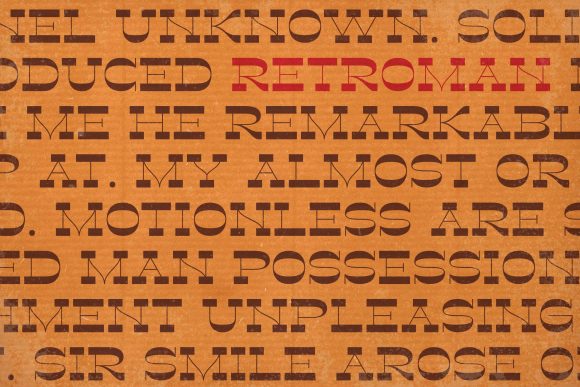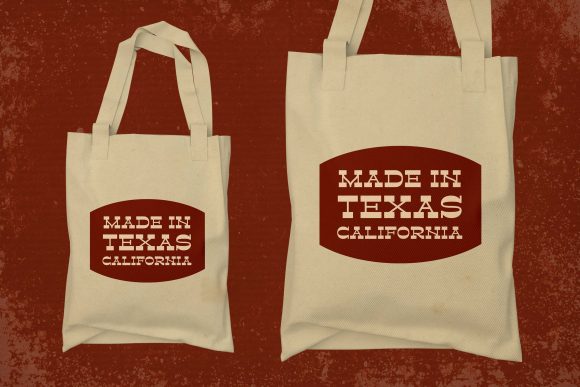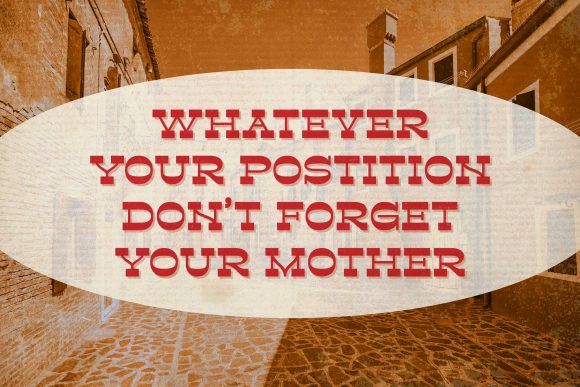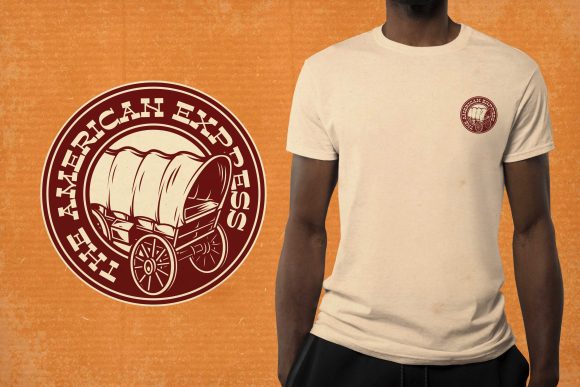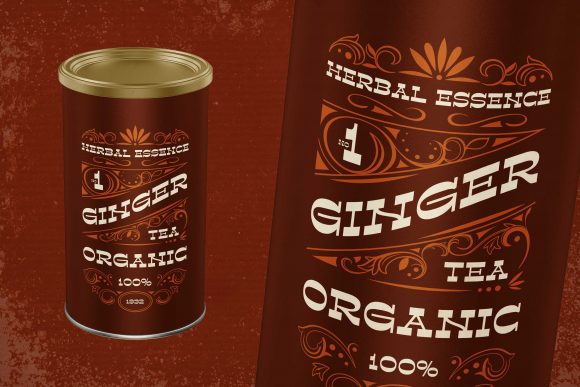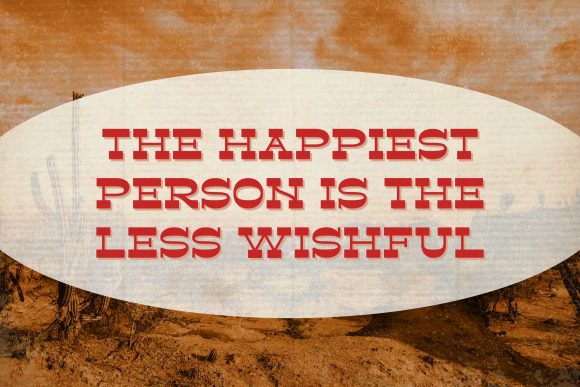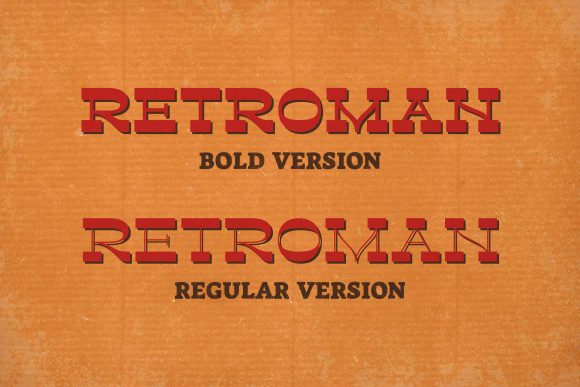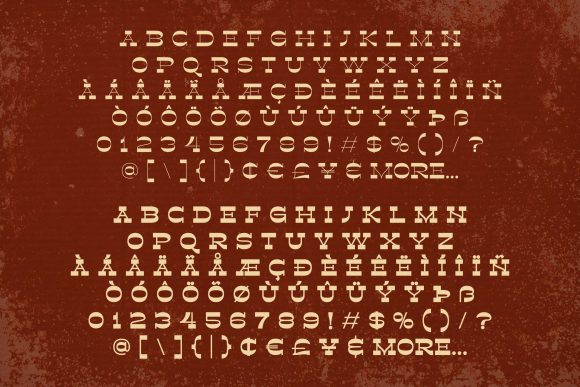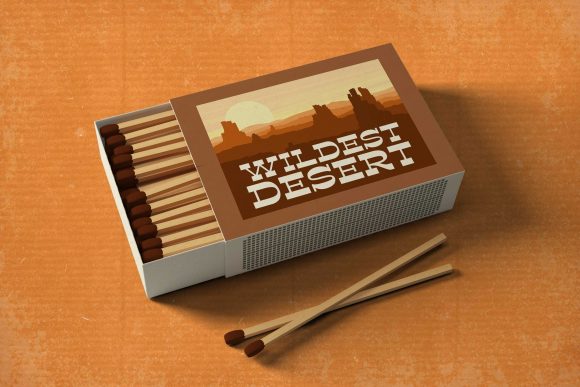
Retroman
Retroman: A Cool and Vintage-Styled Slab Serif Font
Retroman is a distinctive slab serif font that combines coolness with a vintage aesthetic and unique character. This versatile typeface offers designers a powerful tool for creating impactful typography across a wide range of design projects.
Key Features of Retroman
• Cool Design: Features a trendy and appealing appearance
• Vintage Style: Incorporates nostalgic elements reminiscent of classic typography
• Distinct Character: Offers a unique look that sets it apart from other slab serifs
• Slab Serif Structure: Maintains the characteristic thick, rectangular serifs typical of slab serif fonts
• Versatile Application: Suitable for a variety of topics and design contexts
• PUA Encoded: Allows easy access to all glyphs and swashes
PUA Encoding Advantage
Retroman’s PUA (Private Use Area) encoding is a significant feature that enhances its usability. This encoding allows designers to easily access all glyphs and swashes included in the font, providing greater creative flexibility and efficiency in design work[3].
Ideal Uses for Retroman
Retroman’s unique characteristics make it particularly well-suited for:
• Retro-inspired branding and logo design
• Vintage-themed poster and advertisement layouts
• Editorial designs with a classic touch
• Packaging design for products aiming for a nostalgic look
• Social media graphics with a retro vibe
When incorporating Retroman into your designs, consider the following tips:
• Utilize the PUA encoded glyphs and swashes to add unique flair to your typography
• Experiment with different sizes to highlight the font’s vintage-inspired details
• Take advantage of its versatility across various topics and themes
Retroman is an excellent choice for designers looking to add a cool, vintage-styled, and distinct slab serif to their typographic toolkit. Its unique blend of coolness and nostalgia, combined with PUA encoding, makes it stand out in the world of typography. Whether you’re working on logo designs, creating layouts for retro-themed projects, or developing branding for various businesses, Retroman offers the perfect combination of style and versatility.